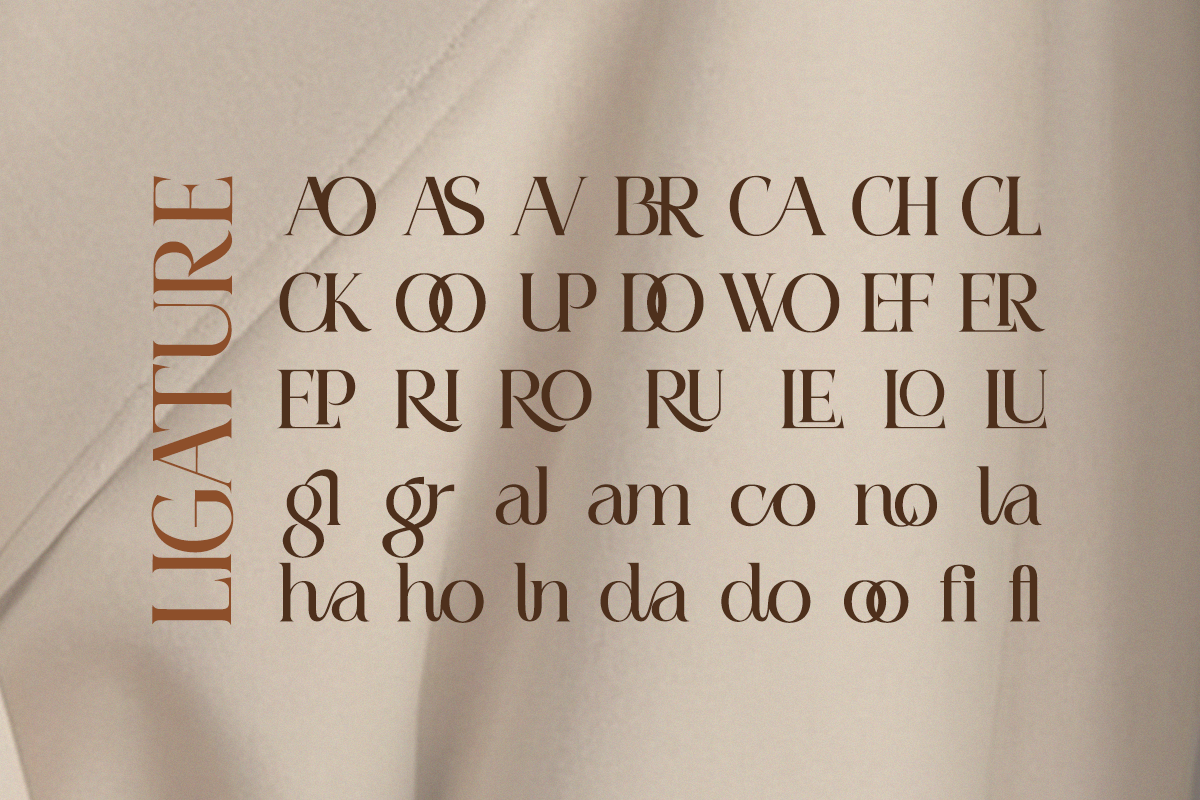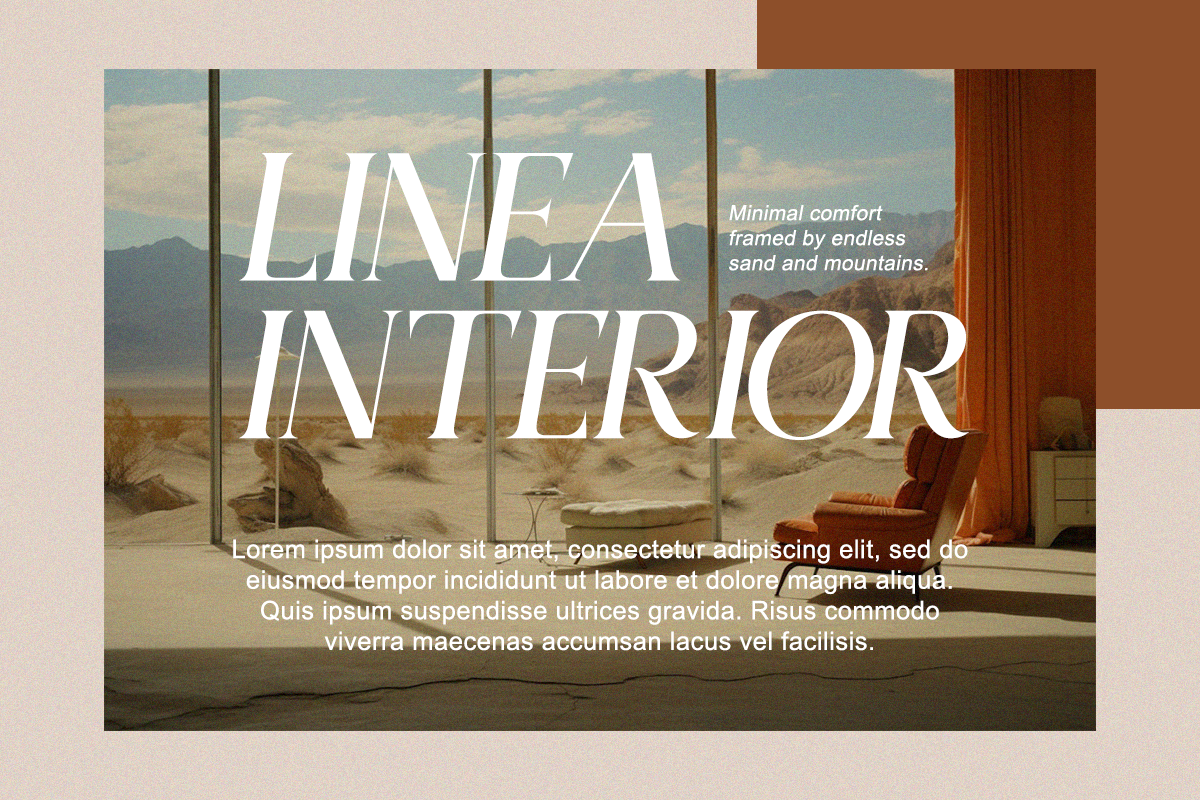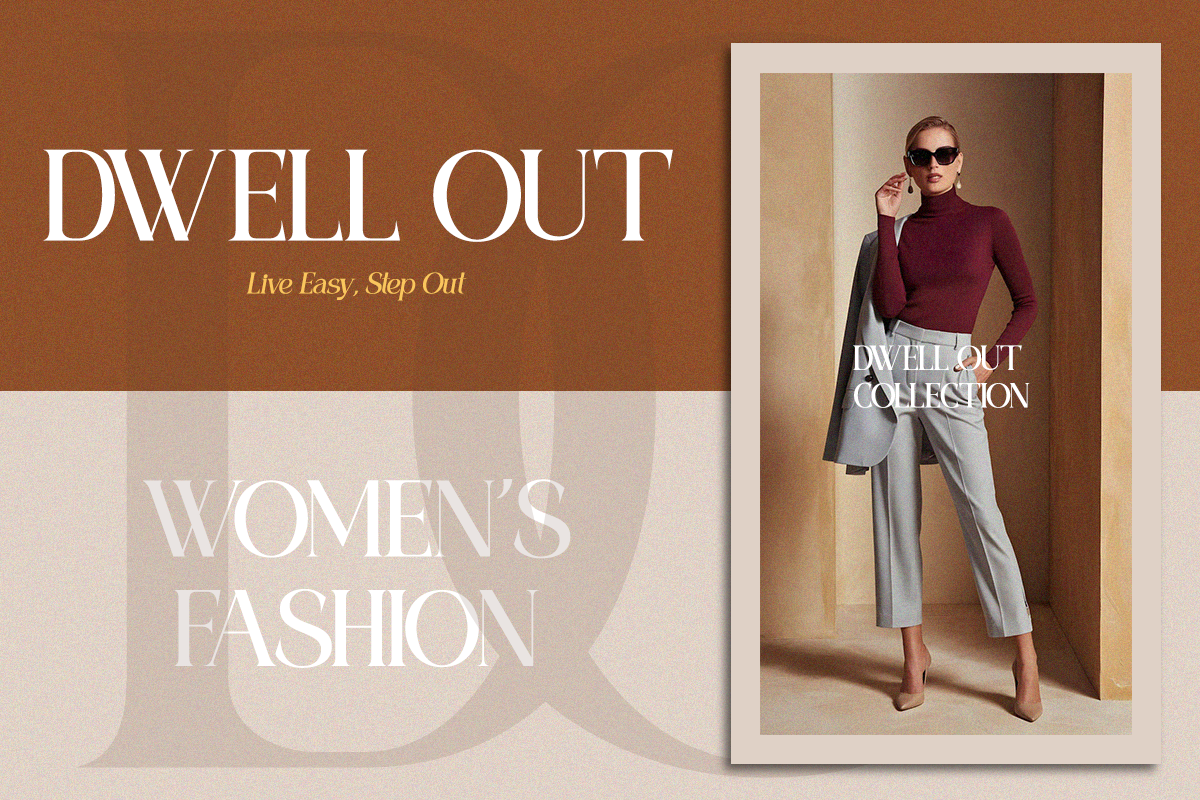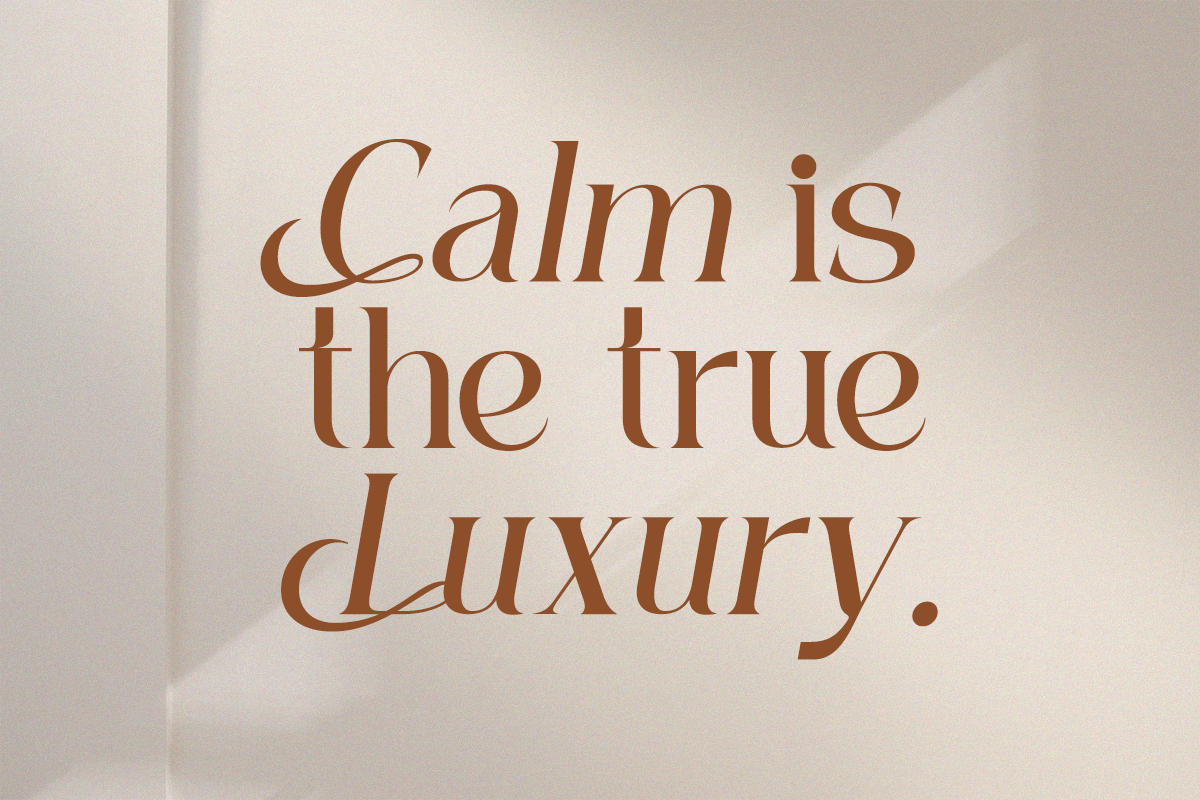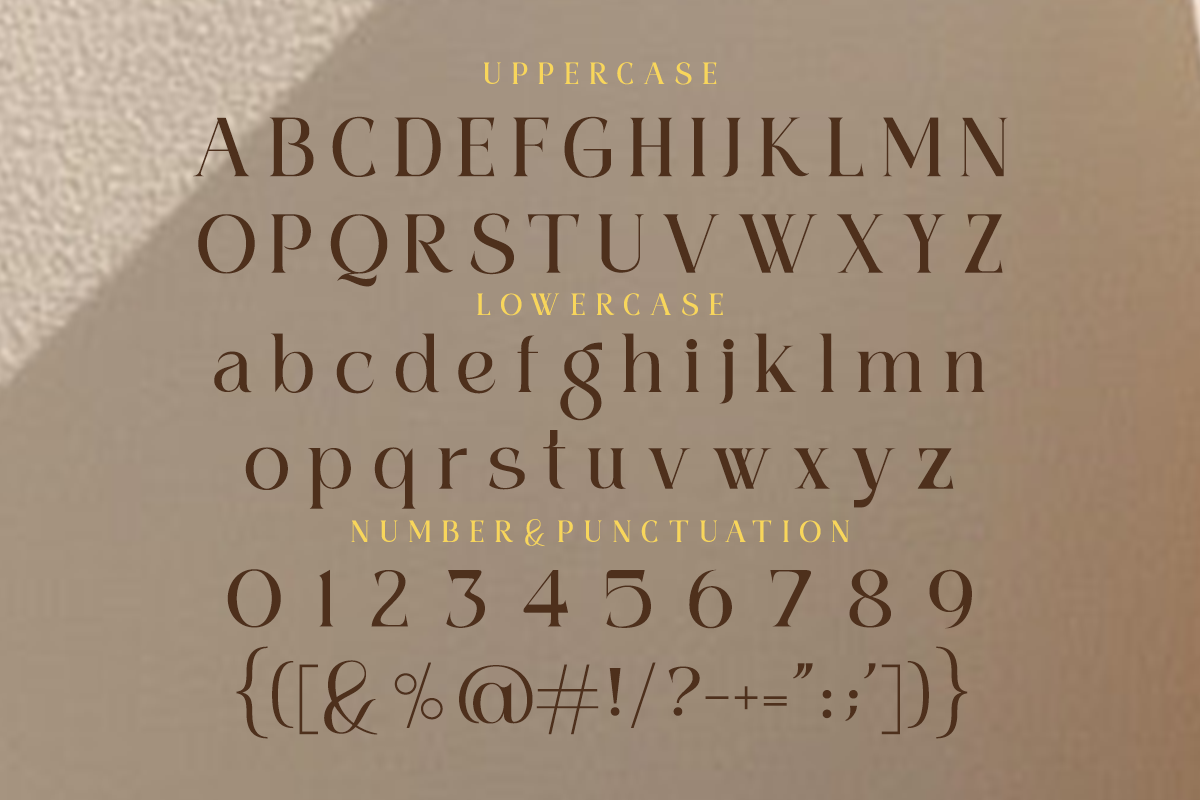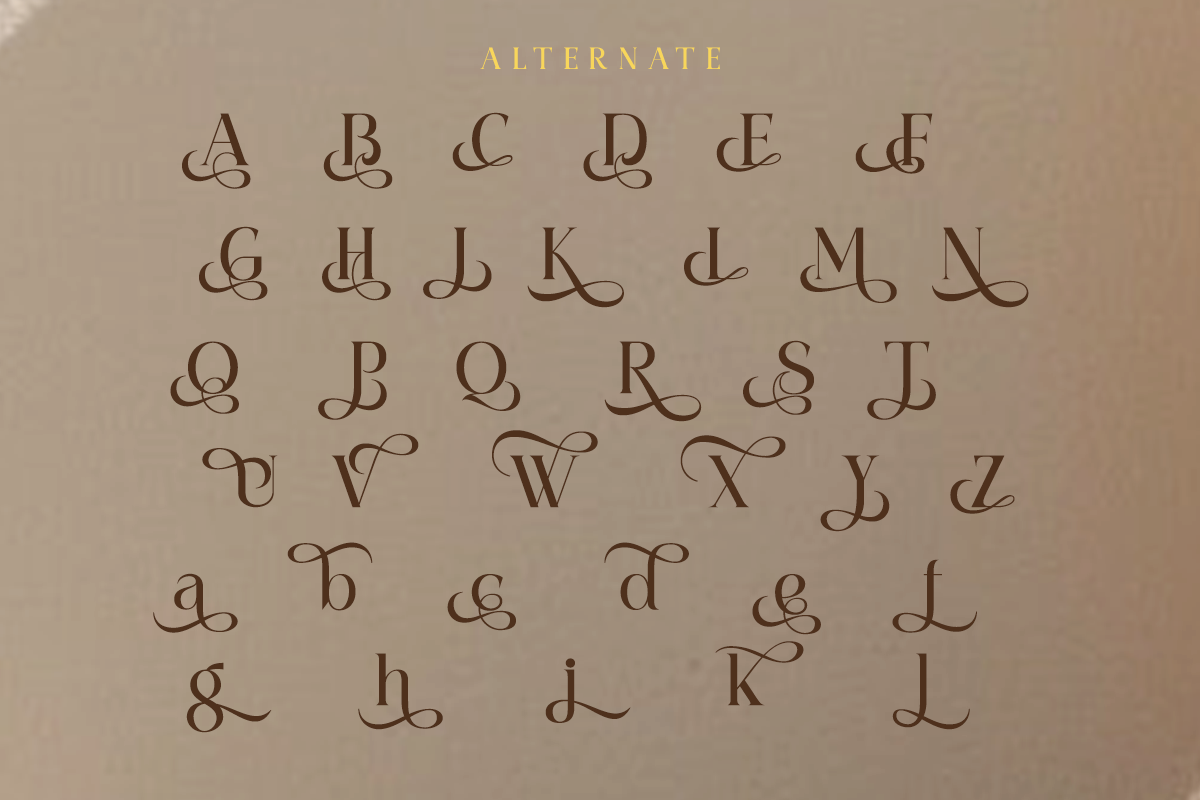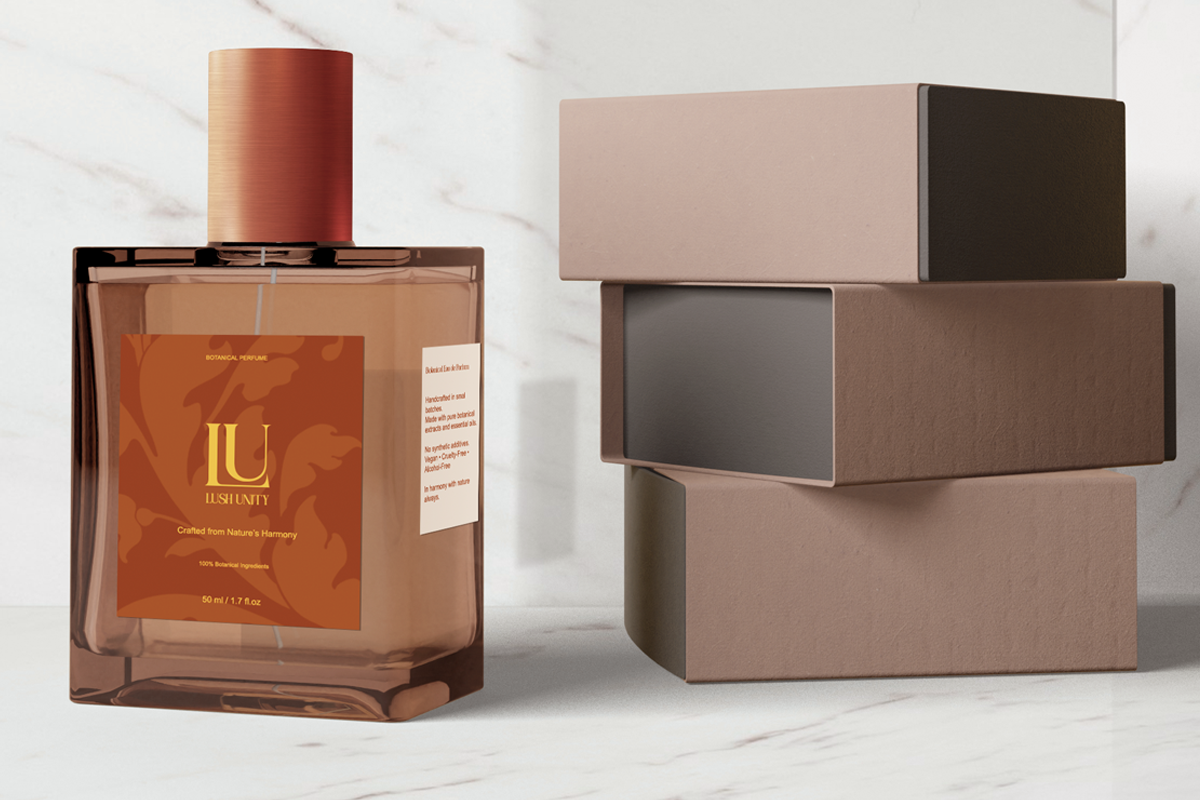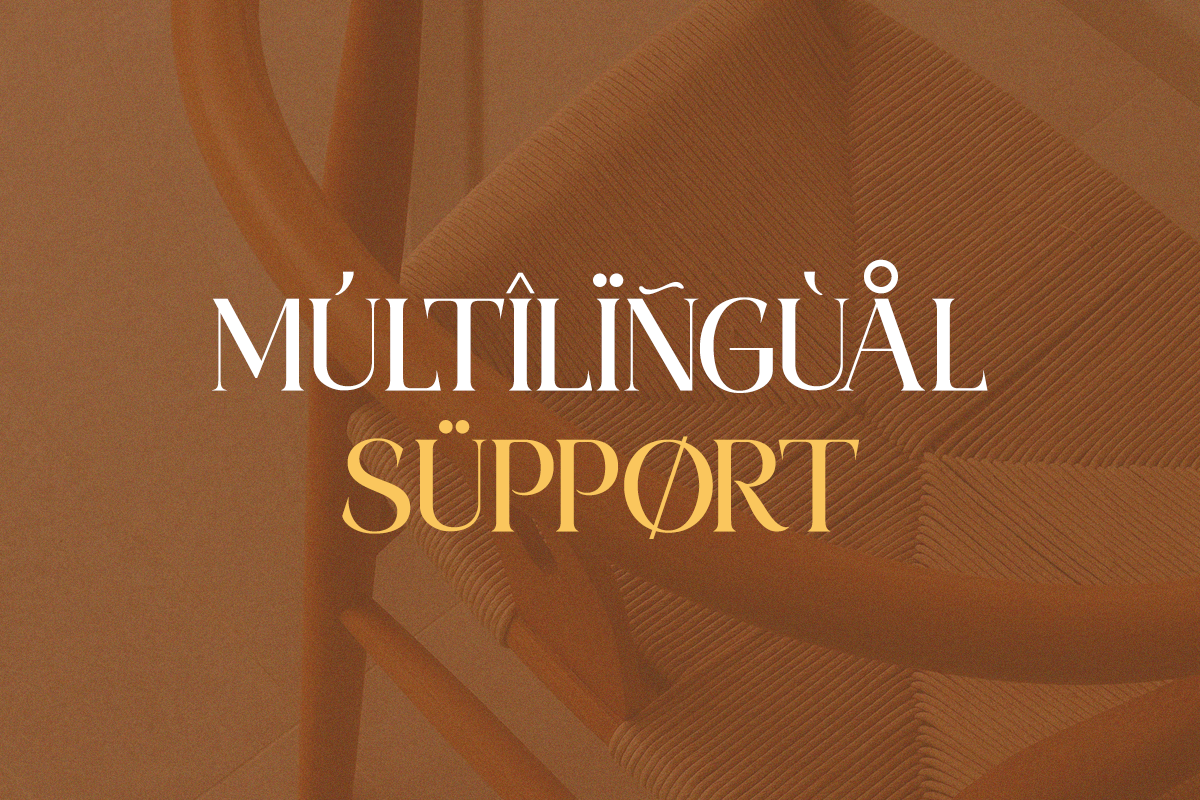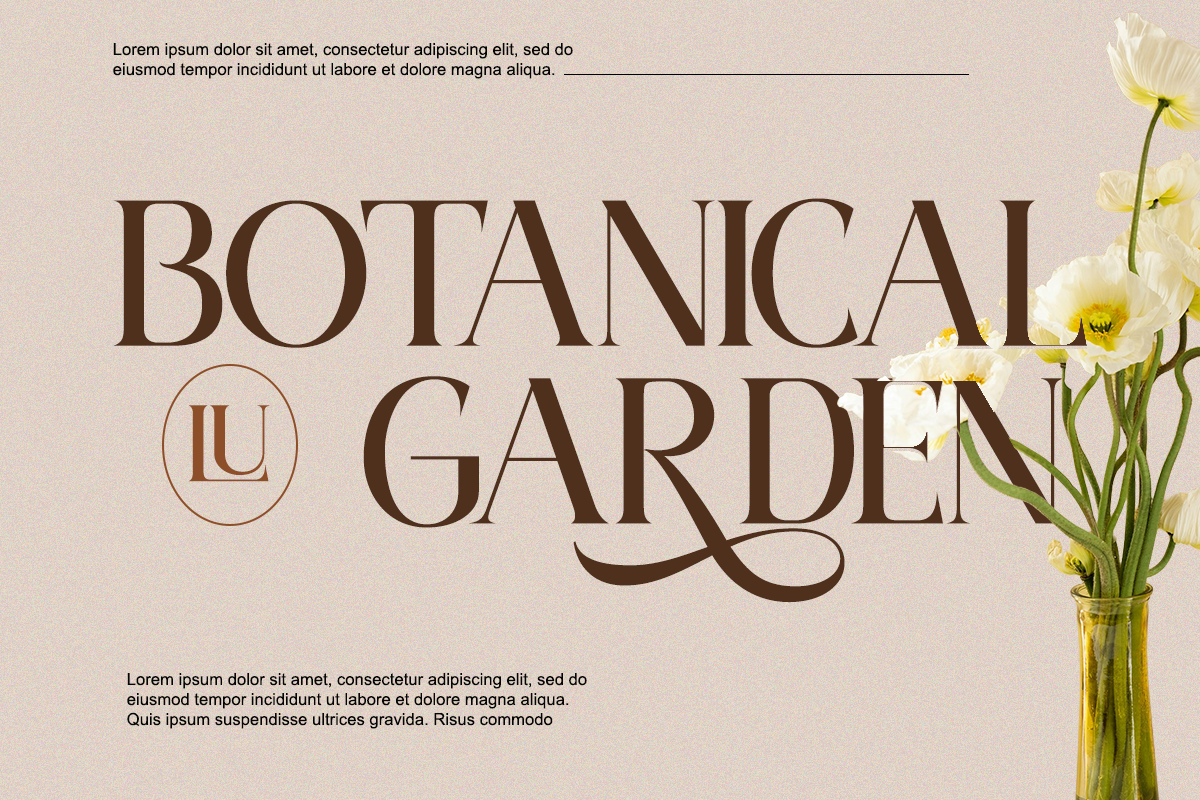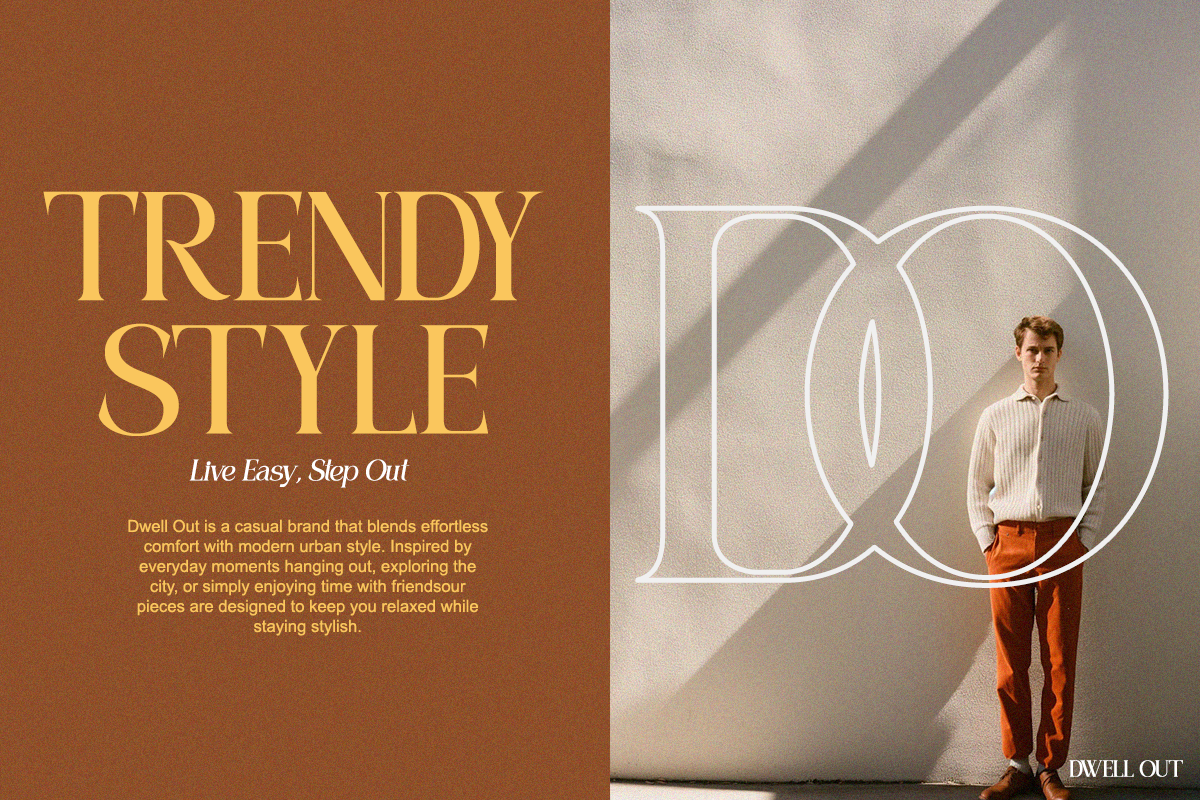
Gekarlo - Modern Stylish Fancy
Gekarlo is a modern stylish serif typeface designed with fancy swashes, smooth curves, and a high-end branding aesthetic. Perfect for designers who want a sophisticated and luxurious feel in their work. Ideal for fashion labels, menswear branding, perfume packaging, editorial layouts, boutique identity, invitations, posters, advertising, and premium logo design. Font Features - Regular & Italic - Uppercase & lowercase - Alternates & ligatures - High contrast strokes - PUA encoded - Multilingual support